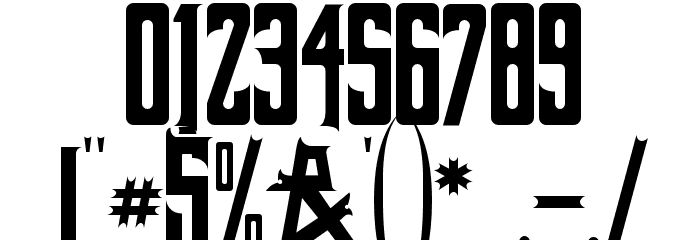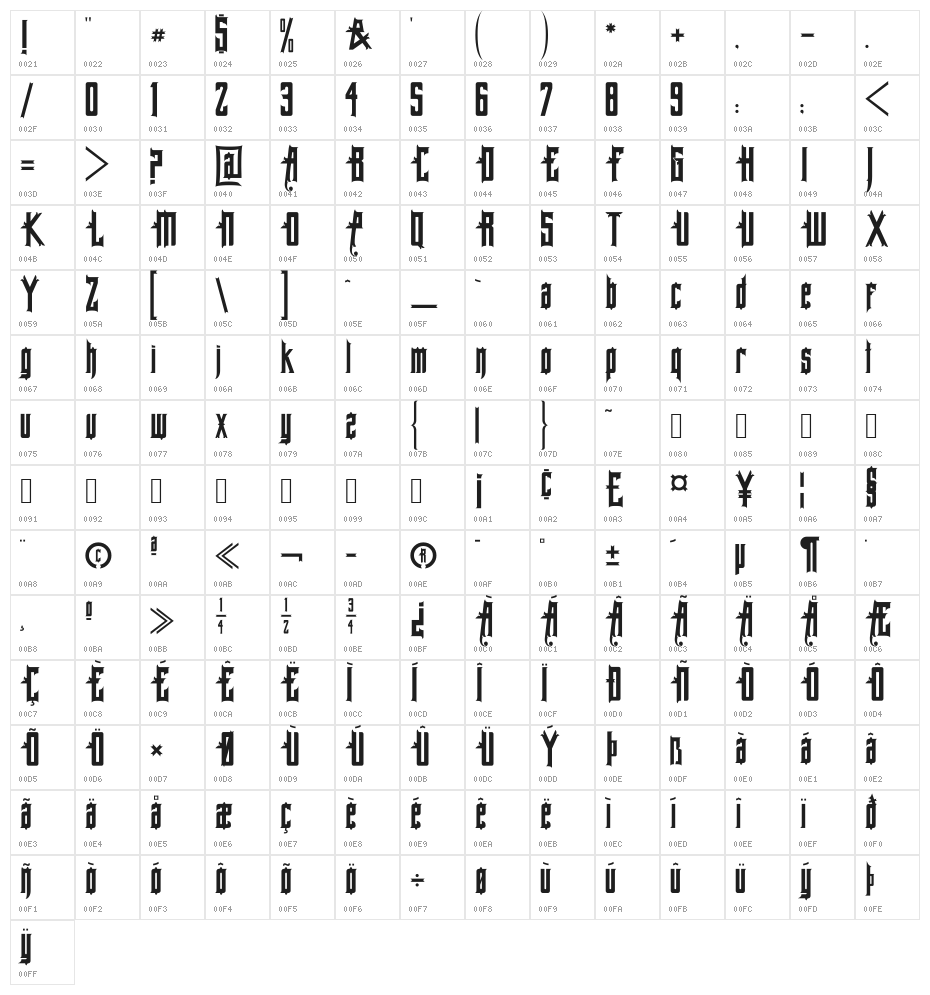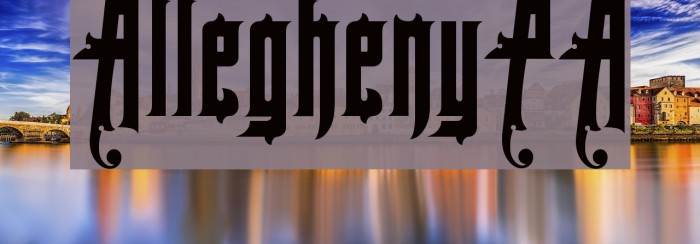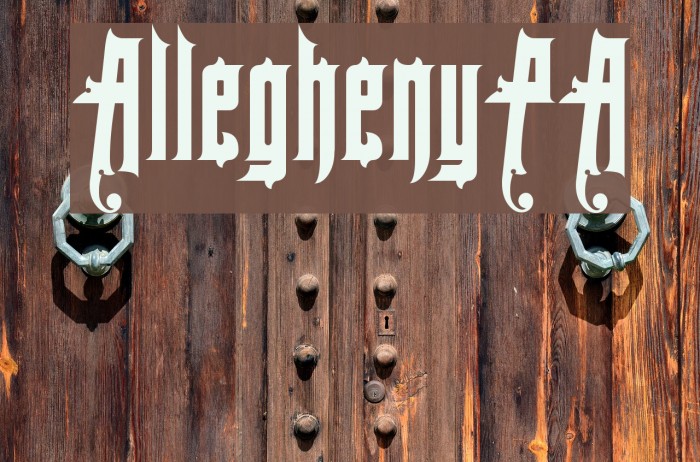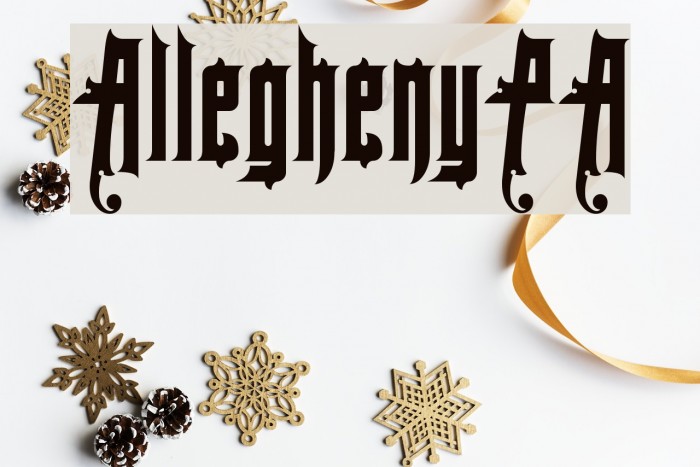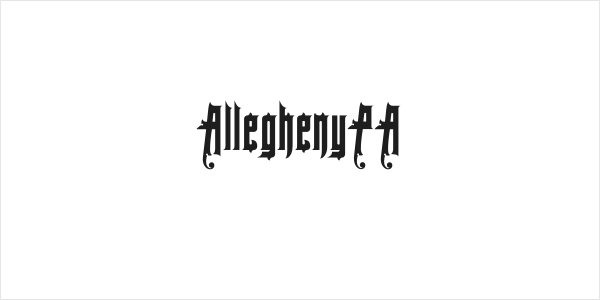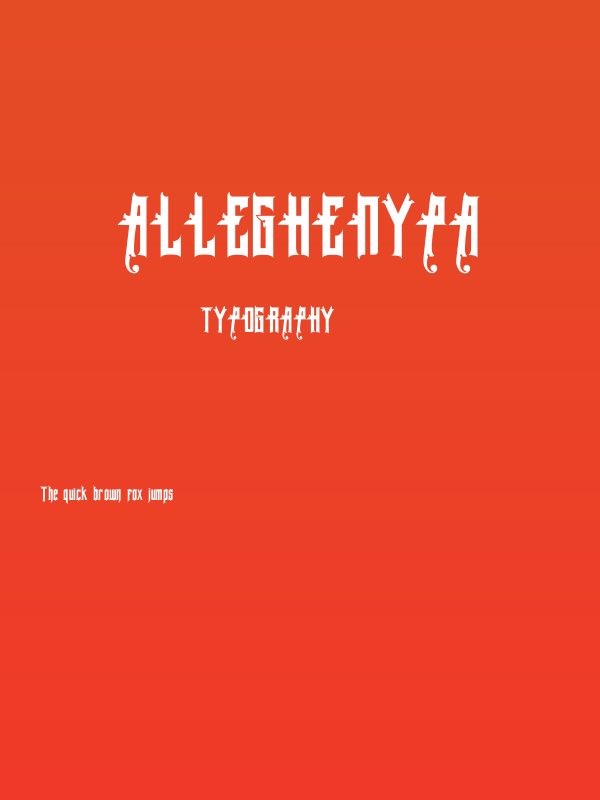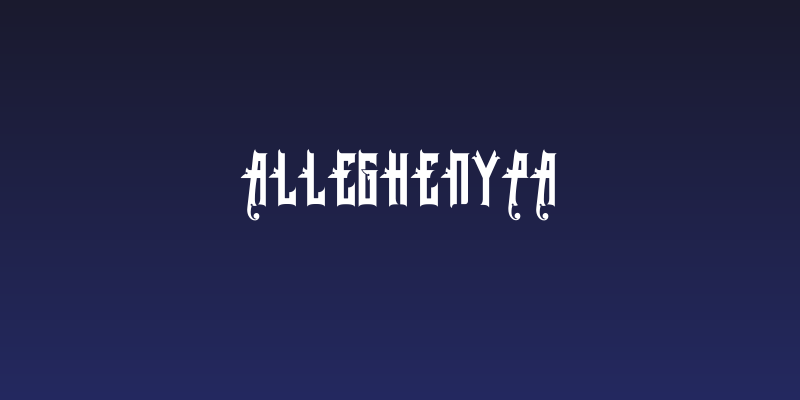
AlleghenyPA Font
AlleghenyPA Description
This font features a bold and striking design with sharp, angular edges and a distinct Gothic influence. The uppercase letters are tall and narrow, with unique embellishments that give them a medieval feel. The lowercase letters maintain the same angular style, creating a cohesive look throughout. Numbers and special characters are designed to match the boldness and intricacy of the alphabet, making this font suitable for attention-grabbing designs. Its dramatic appearance is ideal for projects that require a strong visual impact.
| Proposed Projects | Ideal for posters, logos, book covers, and any design needing a dramatic, medieval touch. |